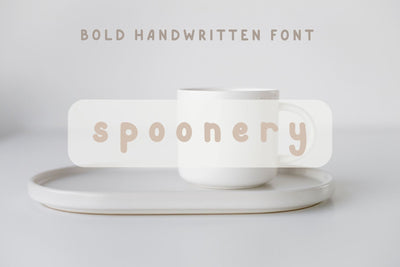
Spoonery
Use Spoonery for your creative projects; logos, branding, notebooks, journals, labels, stickers, blogs, quotes, greeting cards, tea towels, apparel, pillows, mugs, toys, posters, baby clothing, picture books and so much more... basically anything that requires a fun and happiness look! 😍
Uppercase Letters
Lowercase Letters
Numbers & Punctuation